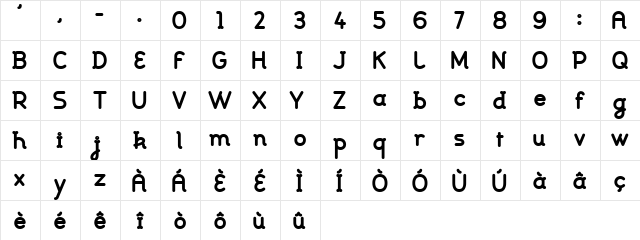
Johanna bold Johanna bold
| Foundry | BenoԴ Sjڨolm |
| Designer | BenoԴ Sjڨolm |
Design Context for Johanna bold Typeface
Johanna bold offers clean, dependable letterforms without strong stylistic allegiance, making it a practical choice for designers who need flexibility. Its bold stroke weight gives it real presence on the page.